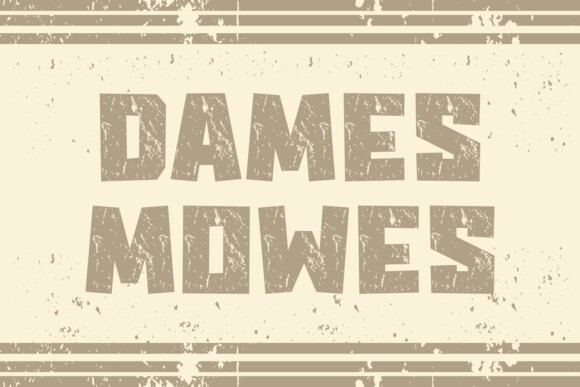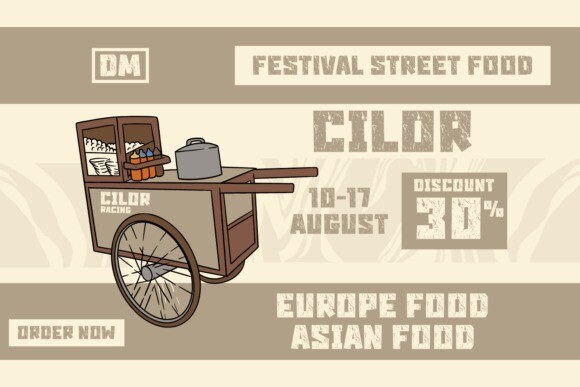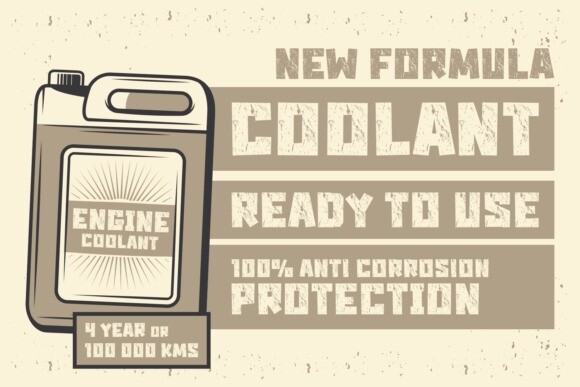
Dames Mowes Font
Dames Mowes Font is playfully nostalgic and delivers an incredible display font. Use this display font to add that special retro touch to any design idea you can think of!. Masterfully designed to become a true favorite, this font has the potential to bring each of your creative ideas to the highest level!